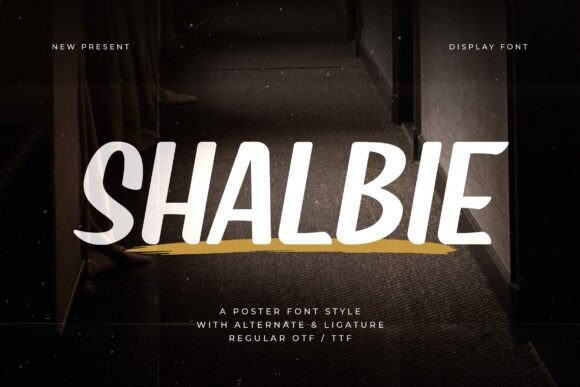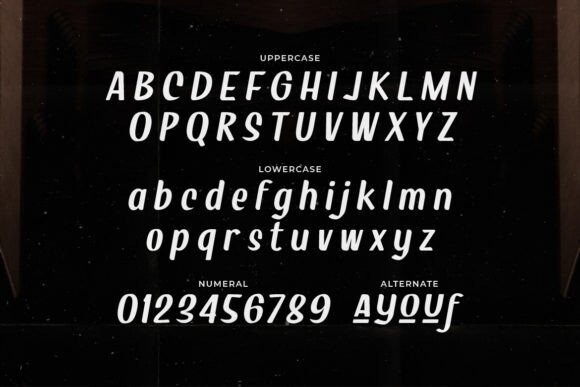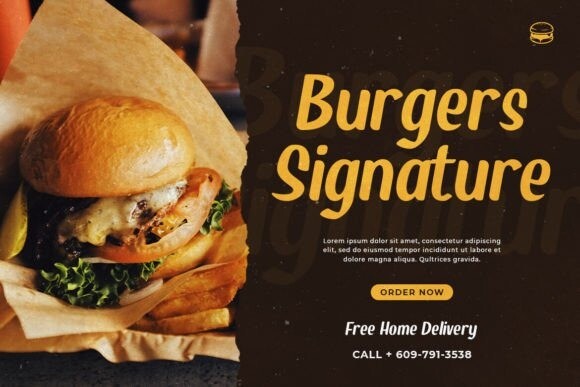
Shalbie Font
Shalbie Font – a captivating poster font style that demands attention and exudes artistic flair! With its bold and expressive letterforms, “Shalbie” makes a striking statement in any project. Each character is meticulously crafted to showcase a perfect blend of boldness and creativity, making it ideal for eye-catching posters, dynamic signage, modern branding, and more.